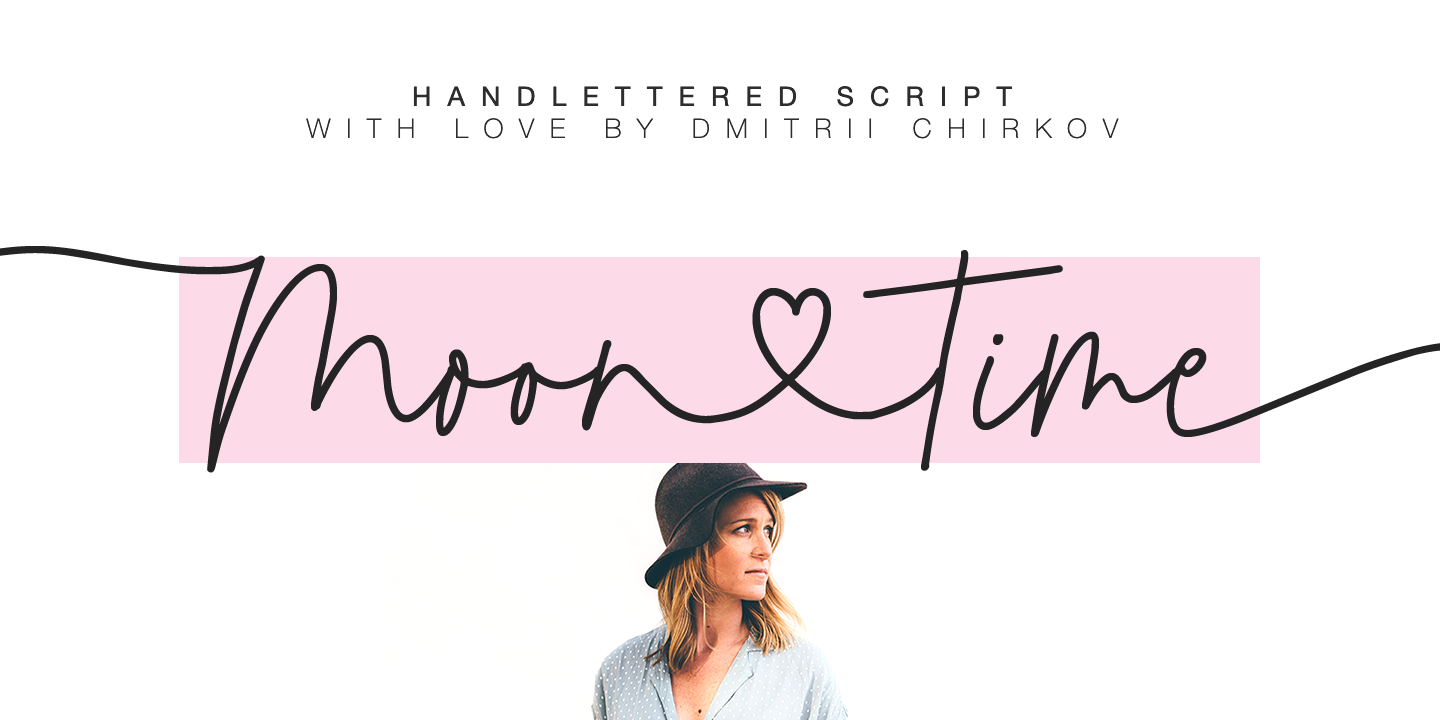
Moon Time Font is perfect for astronomy branding, space-themed designs, night club logos, mystical marketing materials, sci-fi book covers, planetarium graphics, and celestial event promotions. Its cosmic appearance makes it ideal for space agencies, astrology websites, observatory centers, midnight cafes, and otherworldly creative projects.
Moon Time Font is exciting because it captures the mysterious allure of celestial bodies with its ethereal letterforms and cosmic elegance. This enchanting typeface combines lunar-inspired curves with stellar sophistication, creating a visual experience that evokes the wonder of night skies and astronomical phenomena. The font's celestial character makes it perfect for brands seeking to convey mystery, elegance, and connection to the cosmos.
The Moon Time Font family includes multiple celestial variations: Regular, Light, Medium, Bold, and Glow versions. Each style maintains the font's signature cosmic character while offering different levels of visual luminosity. The family also features star-inspired alternates, constellation ligatures, and astronomical symbols that provide designers with comprehensive tools for creating truly stellar typography.
Moon Time Font Free Download represents excellence in cosmic typography design. This exceptional typeface has been thoughtfully crafted to capture the beauty and mystery of celestial movements while maintaining excellent readability across various applications. Whether you're developing space-themed brand identities, creating astronomical publications, or designing mystical marketing materials, this font delivers unmatched cosmic appeal and sophistication.
The astronomical inspiration behind Moon Time Font makes it particularly suitable for space organizations, scientific institutions, and mystery-focused brands. Its ethereal yet grounded personality allows it to communicate wonder and scientific curiosity while maintaining professional credibility. The font's cosmic character supports projects that require both visual magic and functional performance.
Professional designers appreciate Moon Time Font for its ability to create otherworldly brand experiences and memorable cosmic connections. The font performs beautifully in both display and atmospheric applications, making it an invaluable tool for space-themed brand development. Its celestial letterforms support multiple languages and include extensive character sets for international astronomical communications.
The mystical nature of Moon Time Font makes it an ideal choice for brands wanting to establish cosmic, mysterious positioning. Its distinctive celestial personality enhances communications while creating magical connections with audiences who value wonder, exploration, and the infinite beauty of our universe.